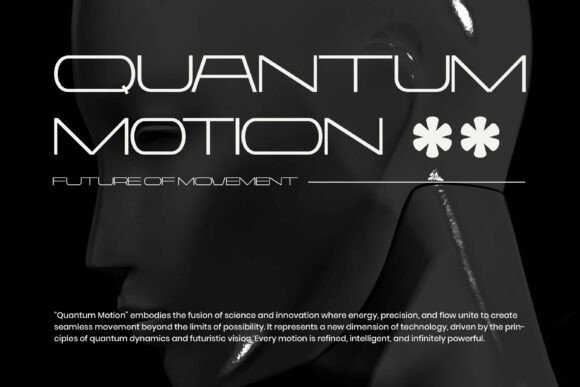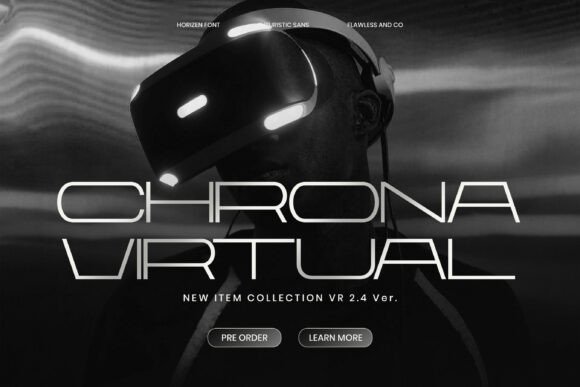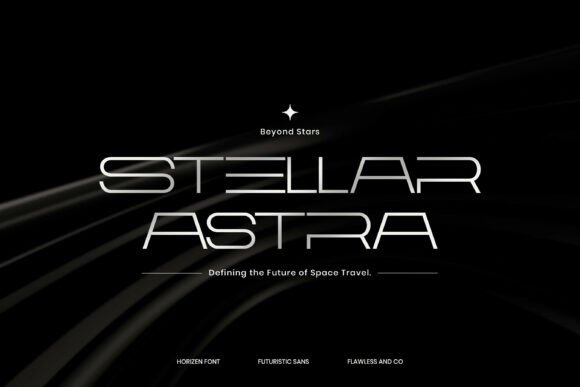
Introduction to Horizen Font
Have you ever stared at a blank canvas, eager to bring your latest creative project to life, only to be overwhelmed by the endless options for fonts? As designers, we know that the right font can make all the difference in setting the tone and aesthetic of our work. That’s why we’re excited to introduce you to Horizen Font, a game-changing sans-serif font that’s poised to revolutionize the world of design.
With its cutting-edge design and sleek precision, Horizen Font is the perfect choice for designers looking to create a bold and futuristic visual identity. Its clean lines and distinctive alternate forms bring a sense of technology and progress, making it ideal for modern branding, digital interfaces, and high-tech logo designs. Whether you’re working on a high-quality design project or simply need a reliable design resource, Horizen Font is sure to impress with its transparent background and high-quality details.
Key Features of Horizen Font
- High-quality design resource suitable for creative projects with a transparent background, allowing for seamless integration into various design elements.
- Comes in a single font size, making it easy to use across various design projects, with a standard character set and a resolution of 300 DPI for crisp and clear typography.
- Unique and stylish design, perfect for creative projects that require a touch of modernity and sophistication, making it an excellent addition to any design resource collection.
- Designed to be highly versatile, the Horizen Font can be used in a wide range of creative projects, from branding and advertising to digital media and print materials.
- Includes a comprehensive character set, supporting multiple languages and scripts, making it an excellent choice for designers working on global projects.
Honest Review: Horizen Font
I recently came across the Horizen Font and I’m excited to share my honest thoughts on this design resource. As a designer, I’m always on the lookout for high-quality fonts that can elevate my creative projects.
Here are some of the things that work well with the Horizen Font:
- ✨ High quality design: The Horizen Font is well-designed and visually appealing, making it perfect for a wide range of creative projects.
- ✨ Transparent background: The font’s transparent background makes it easy to use on any design, without worrying about background clashes.
- ⚠️ Limited styles: While the Horizen Font is well-designed, it’s limited to a single style, which may not be suitable for all projects.
- ⚠️ Not ideal for body text: Due to its unique design, the Horizen Font may not be the best choice for body text, and is better suited for headlines and titles.
Overall, I’m impressed with the Horizen Font and I think it’s a great addition to any designer’s toolkit. While it may have some limitations, it’s a high-quality design resource that’s perfect for creative projects that require a unique touch.
To use Horizen Font in PowerPoint and Word, download the font from the official website and install it on your computer. You can then select the font from the font library in your software and apply it to your text elements. The Horizen Font is a great choice for presentations and documents that require a professional and high-quality look.
The Horizen Font is suitable for various design projects, including:
- Print design
Tips for Getting the Most Out of Horizen Font
To get the most out of the Horizen Font, consider the following tips: